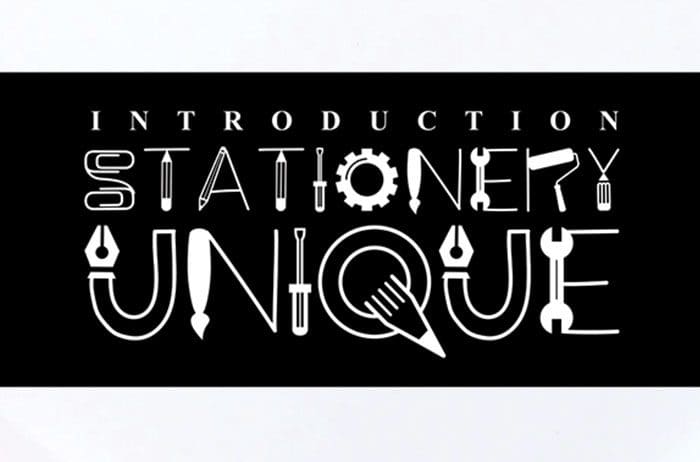
Stationary Unique Display Font
Stationary Unique display font. It features original characters that will take your crafting projects to the next level. Get inspired by its unique look and use it for your stationery upcoming projects! Designed this font by Andika Studio. You can also search more freeĀ Display Fonts.